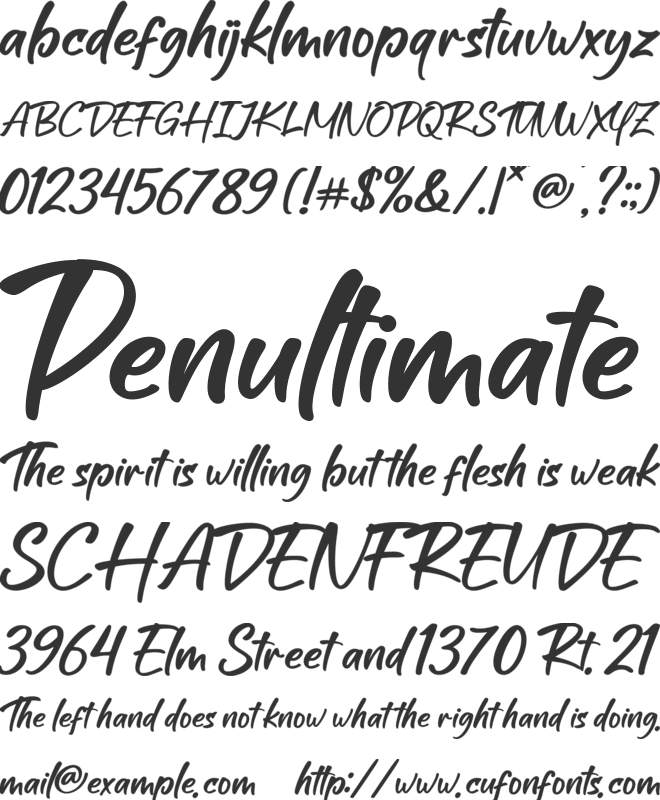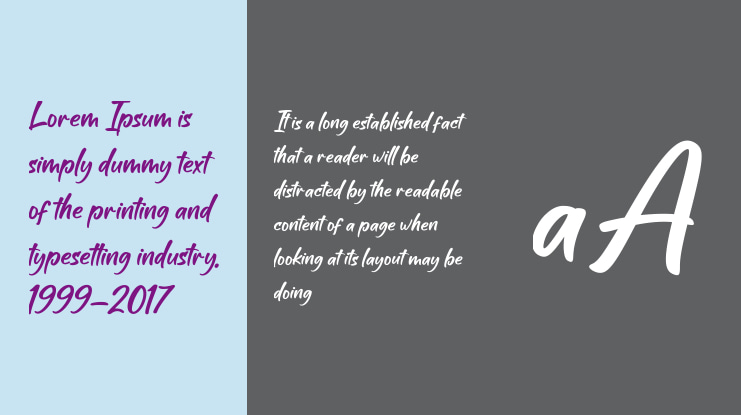
Roster York Font
Roster York –Casual Handwritten Font for Branding
Handwritting Font Created with real pen strokes for a natural look and casual touch to everything from branding and social media to invitations and packaging.